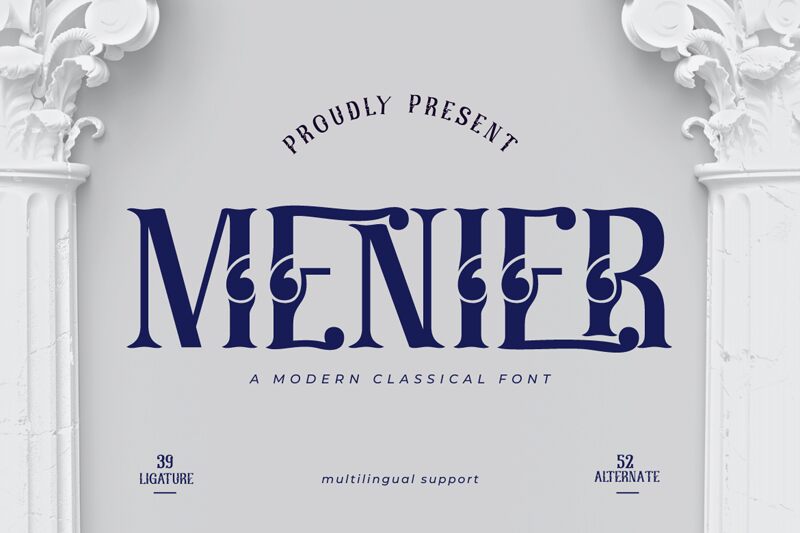
Menier, crafted by Twinletter, is a striking display font that embodies a retro charm. Its condensed width coupled with bold, dramatic strokes makes it perfect for making an unforgettable impression. The unique and artistic flourishes that adorn each character give Menier an elegant yet playful personality.
Ideal for vintage-themed projects, this font excels in creating eye-catching headlines, logos, and posters. Its distinctiveness ensures your design stands out while evoking a sense of nostalgia and sophistication. Menier brings a touch of classic flair to modern designs, making it versatile for various creative applications from branding to editorial work.